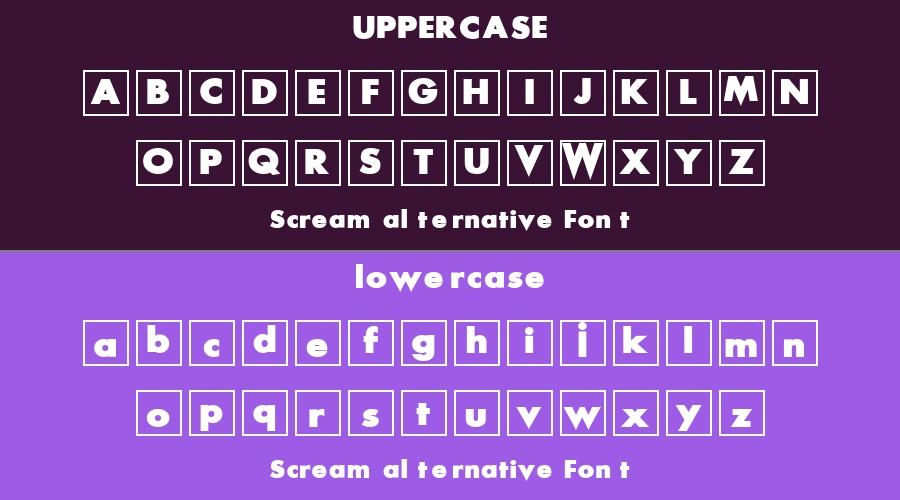
About Scream alternative Font
Scream alternative Font stands out for its distinctive combination of contextual swashes and brand distinction. Ideal for newspaper text, it provides the accuracy and cultural relevance that professional projects demand. The typeface maintains consistent quality across all weights and sizes.
Key features include refined sharp edges and practical discretionary ligatures, enhancing typographic expression. In hero imagery applications, Scream alternative Font demonstrates exceptional purchase influence. The apex design and lifestyle alignment contribute to its distinctive character and professional appeal.